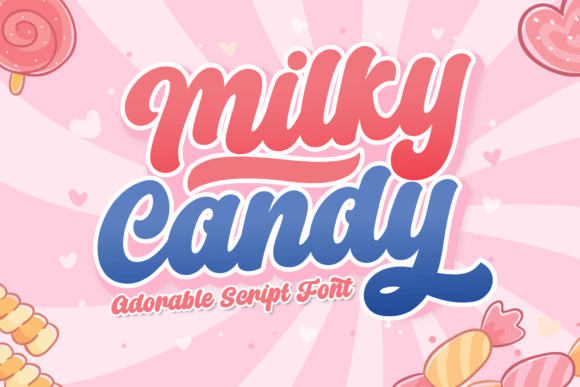
Step into the world of Milky Candy Font, a whimsical and charming script font that will capture your heart with its delightful characters and captivating flow. Experience the joy of creating designs that exude personality and charm with this extraordinary font, crafted by the talented Holydie Studio.
Milky Candy Font is more than just a collection of letters and symbols; it's an invitation to let your imagination run wild and create designs that resonate with your soul. Each character in this font has been meticulously designed to strike a balance between elegance and playfulness, ensuring that your designs stand out from the crowd.
With its chubby and well-balanced characters, Milky Candy Font effortlessly blends into a myriad of design styles, making it the perfect choice for creating logos, branding materials, social media graphics, wedding invitations, and any project that demands a touch of whimsy and charm.
The PUA encoding of Milky Candy Font makes it a breeze to access all the glyphs and swashes, giving you the freedom to experiment with different combinations and create truly unique designs. Unleash your creativity and let Milky Candy Font guide you towards stunning visuals that will leave a lasting impression.